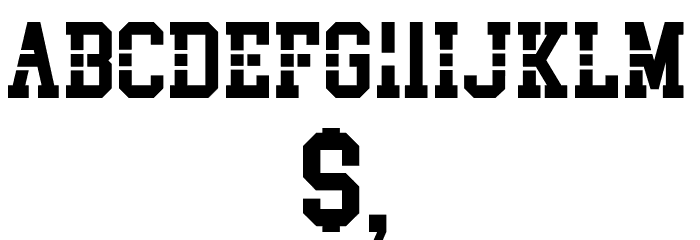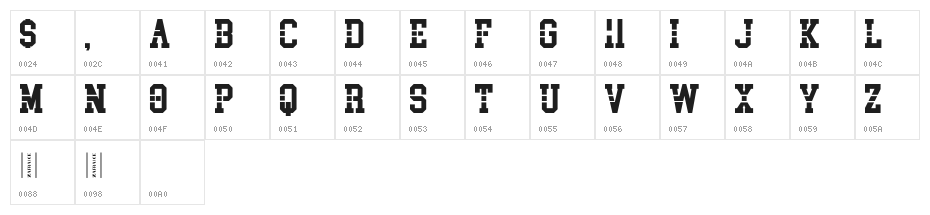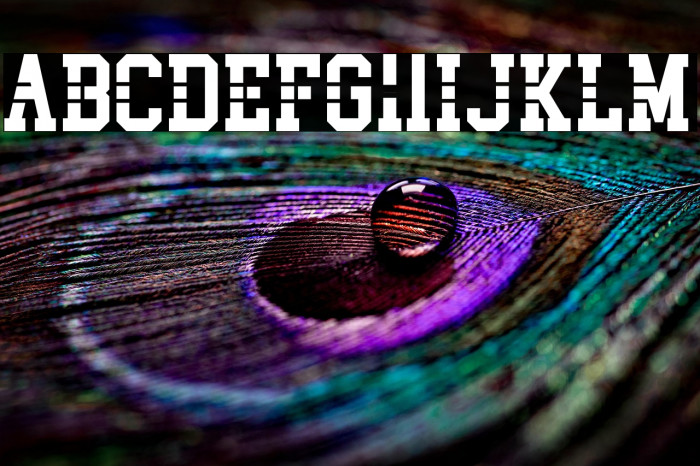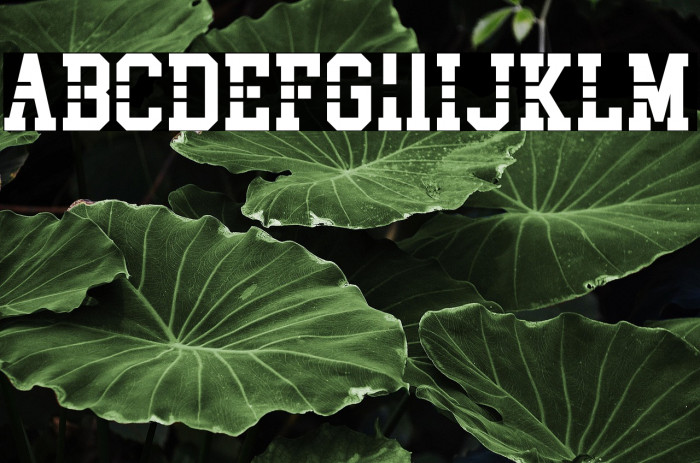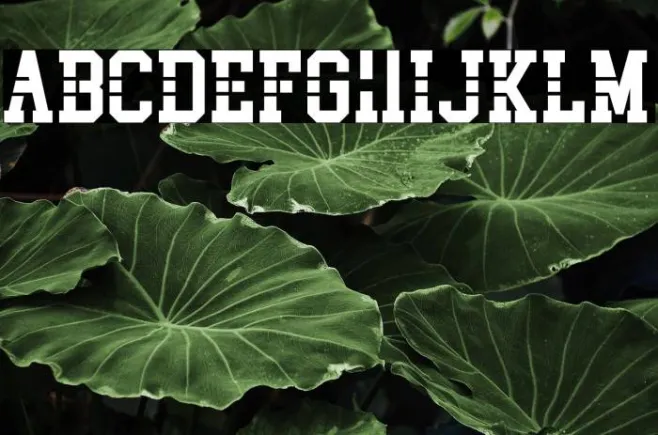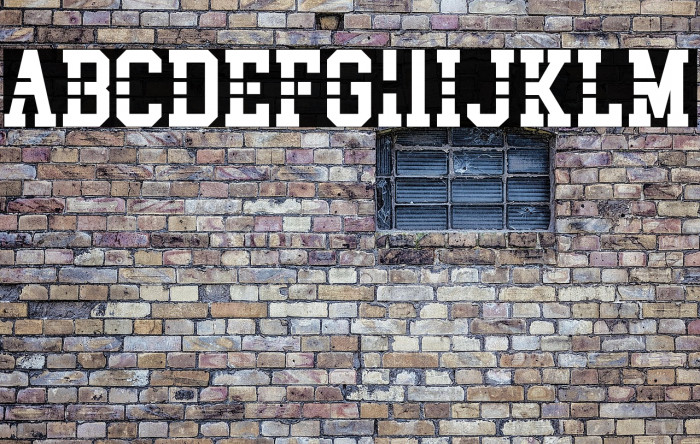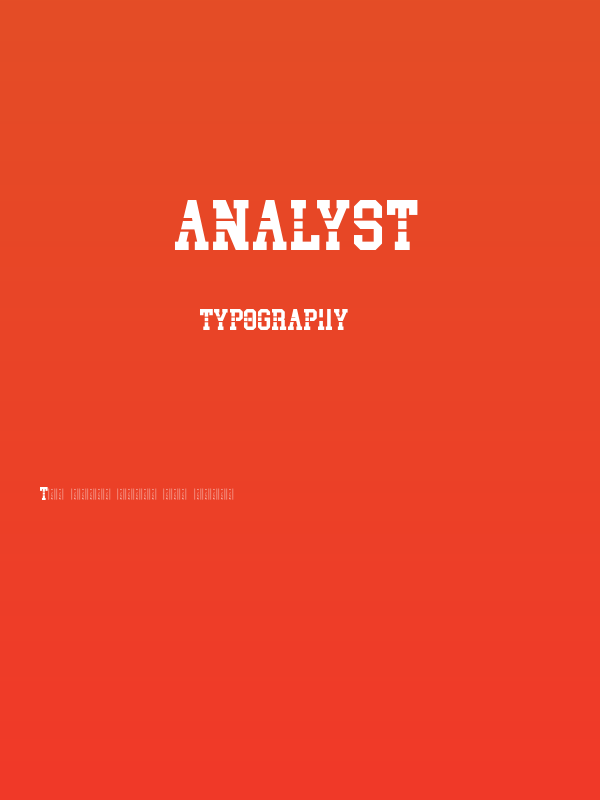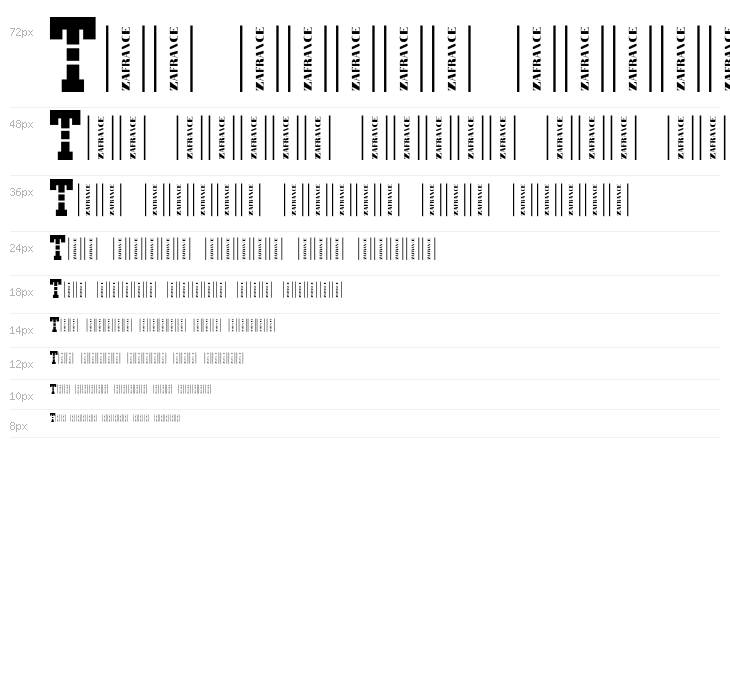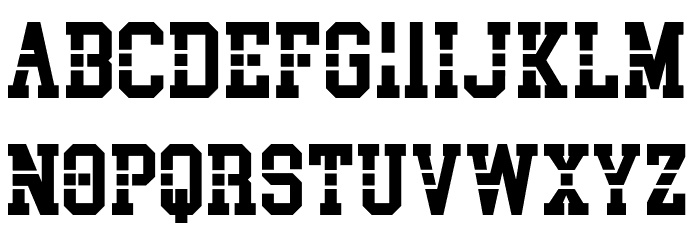
Analyst Font
Analyst Description
This font features a bold, geometric design with a distinct blocky appearance. The characters are constructed with a series of solid, angular shapes that give it a strong, impactful presence. The uppercase letters are particularly striking, with a uniform height and width that create a cohesive look. The lowercase letters maintain the same boldness, ensuring readability and consistency. The numbers and special characters are designed to match the overall style, making them easily recognizable. This font is ideal for projects that require a modern, industrial feel.